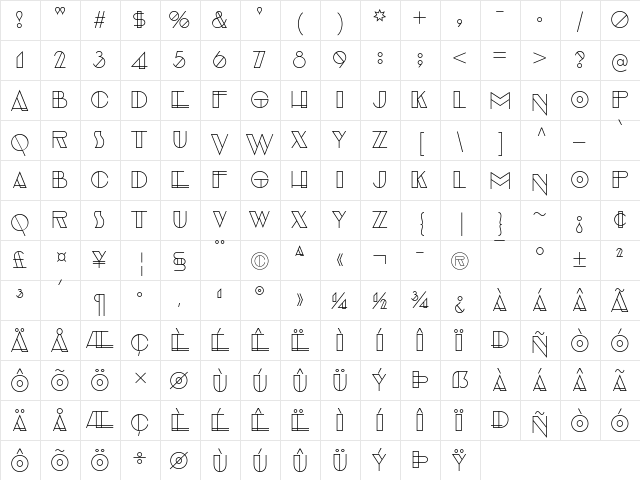
Evensong Hollow
Design Context for Evensong Typeface
Evensong is a composed and adaptable typeface that performs quietly and consistently across a wide range of design contexts.